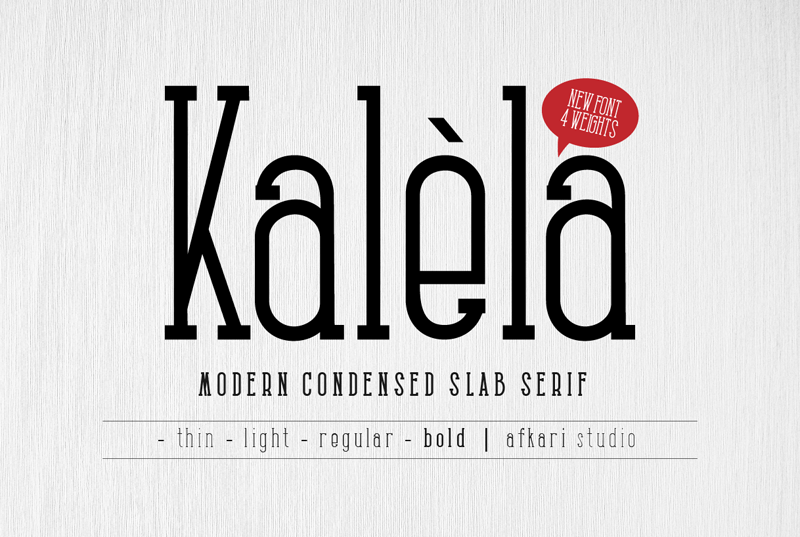
Font name: | Kalela Slab |
Kalela Slab Condensed Slab Serif Font Kalela Slab is Condensed Slab Serif Font a Modern Condensed Slab serif with solid font files. Suitable for branding, name card, stationary, design title, blog header, Logo, greeting cards, quotes, posters, art quote, typography. Kalela Slab Condensed Slab Serif Font also suitable for your any projects. Iclude: Kalela Slab With 4 Weight; Thin, Light, Regular and Bold Features : � Upper Case & Lowercase (All Caps) � Numerals & Punctuations (OpenType Standard) � Accents (Multilingual characters) No special software is required to use Kalela Slab Condensed Slab Serif Font By installing or using this font, you are agree to the Product Usage Agreement: 1. This font for PERSONAL USE. No commercial use allowed! 2. If you want to use this font for commercial use you must buy a commercial license. 3. LINK TO PURCHASE COMMERSIAL LICENSE and COMPLETE STYLE for this font, find it here: https://www.behance.net/gallery/128625765/Kalela-Slab-Condensed-Slab-Serif-Font Or Purchase in; https://afkaristudio.com/product/kalela-slab-condensed-slab-serif-font/ to DONATE click here: Paypal.me/musthafanet if you need more detailed information you can contact us at: afkaristudio@gmail.com More... |